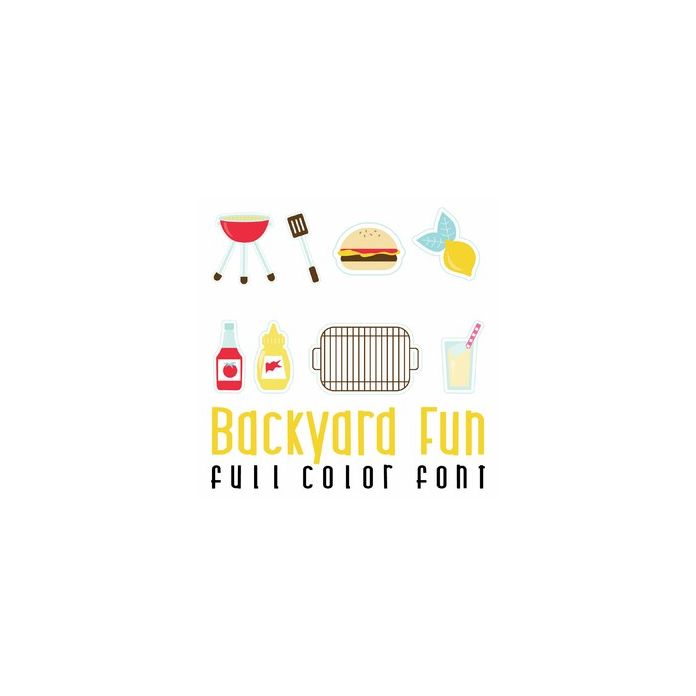
This adorable full color doodlebat font features 26 fun backyard cookout items. Perfect for cards, crafts, gifts, decor, scrap book pages, planner stickers and more!